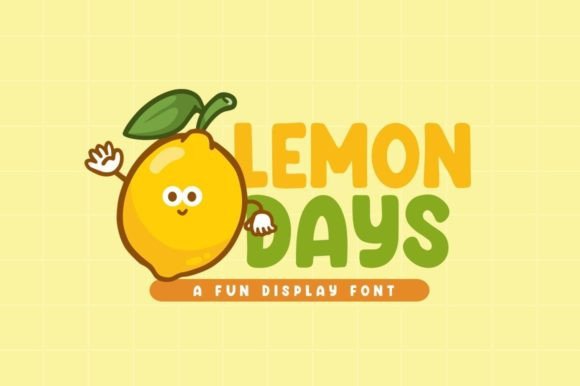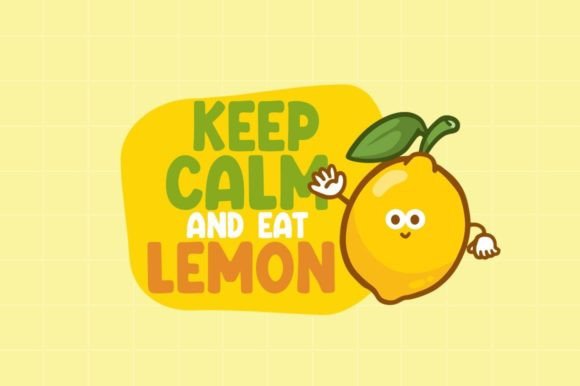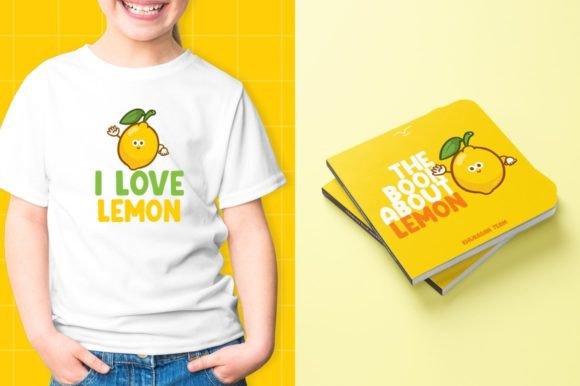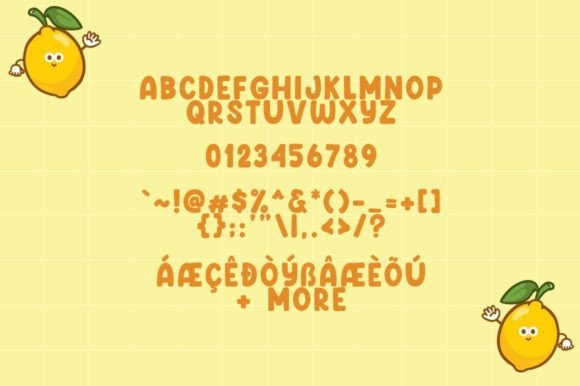
Lemon Days Font
About the Lemon Days Font
Make a bold statement with Lemon Days Font, a powerful and memorable font. Lemon Days is a fun and cool display font. Whether you use it for cartoon-related designs, children’s games, or just any creation that requires a playful touch, this font is the perfect choice for your designs!
Lemon Days excels as a display font for headlines, short titles, and playful branding elements. It’s ideal for projects targeting a young audience, such as children’s books, cartoons, or packaging for toys and games. Its whimsical nature makes it unsuitable for body text or lengthy paragraphs; readability suffers at smaller sizes. Avoid using it in user interfaces (UI) where clear legibility is paramount.
The font’s personality is undeniably playful and friendly. To balance this, consider pairing Lemon Days with a clean sans-serif like Open Sans for body copy or a more structured serif like Merriweather for a touch of sophistication. For a bolder contrast, a geometric sans-serif such as Futura would create a strong visual hierarchy.
Alternatively, a delicate script font could add a layer of elegance to offset the font’s inherent fun. This approach is best suited for projects where a balance between playful and refined is required, such as children’s apparel branding or whimsical invitations.